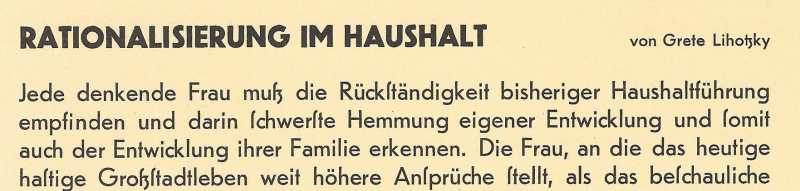
It's from a book about Frankfurter Küche 10 years 11 months ago #656
the special thing about this font - the s looks like an "f" and the german "ß" is in this font the real old "sz".
The Book is about the "Frankfurter Küche" -> en.wikipedia.org/wiki/Frankfurt_kitchen
The closest I could find is the one that Find my Font reports first: Will Erbar
Unfortunately the u, ß and s are different :(